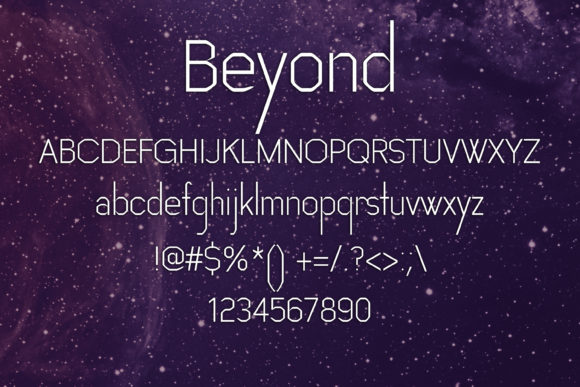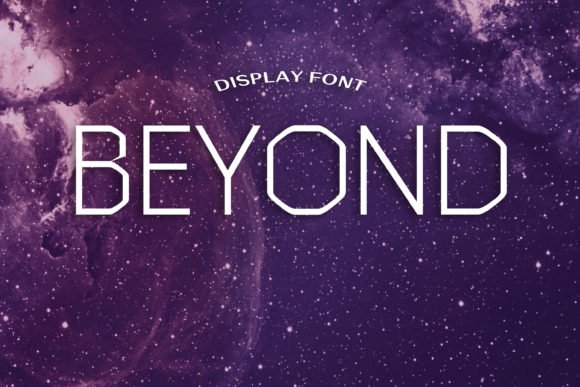
The Birth of a New Era in Typography
Do you remember that moment when you stumbled upon a font that made your design come alive? For us, it was the moment we laid eyes on Beyond Font. Its unique blend of elegance and clarity sparked a creative fire that ignited a new era in typography. This font has the power to transport your designs to a world beyond the ordinary.
Beyond Font is more than just a display font – it’s an experience. Designed to inspire, it combines intricate details with a clean aesthetic, making it the perfect tool for designers who want to add a touch of sophistication to their work. With Beyond Font, the possibilities are endless, and the value it brings to your designs is immeasurable.
Beyond Font Key Features
- Advanced Character Set: The font includes a comprehensive character set, including accented characters, punctuation, and symbols, to cater to diverse language needs.
- High-Quality Graphics: The font features high-quality graphics, including detailed illustrations and intricate designs, to add visual appeal to digital content.
Designer Review: Beyond Font
Overall, I was excited to dive into Beyond Font, but my experience had its highs and lows. Let’s start with what works well:
- ✨ Unique aesthetic: Beyond Font offers a distinct and refreshing take on traditional fonts, which is perfect for designers looking to stand out.
- ✨ Versatile: The font is available in various styles, from clean and modern to bold and playful, making it suitable for a wide range of projects.
- ✨ Easy to use: The font is well-behaved and easy to work with, even in complex layouts.
- ⚠️ Limited character set: While the font is available in various styles, the character set is somewhat limited, which may not be ideal for projects that require a lot of special characters.
- ⚠️ Not suitable for small text: The font’s unique aesthetic may not be suitable for small text sizes, as it can become difficult to read.
- ⚠️ Limited support for older browsers: As with many modern fonts, Beyond Font may not be supported in older browsers, which could be a concern for projects that need to cater to a wide range of users.
Overall, I think Beyond Font is a great option for designers who want to add some visual interest to their projects. While it has some limitations, its unique aesthetic and versatility make it a great choice for the right project.
Beyond Font is commonly used for creating custom logos, branding materials, and marketing materials. It’s also used for creating unique and eye-catching text effects in presentations and documents.